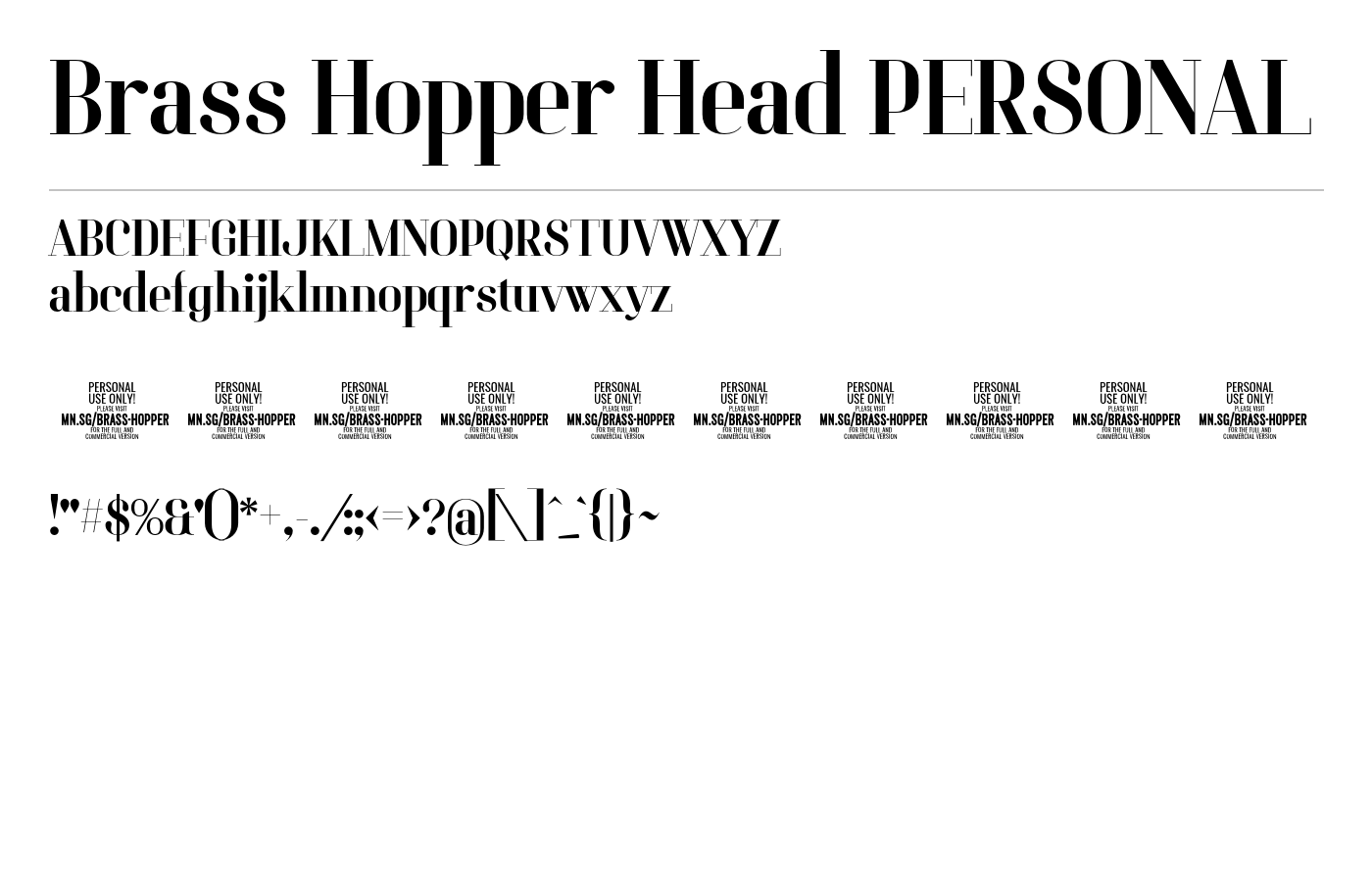
Brass Hopper Head PERSONAL is an elegant modern serif font with high contrast between thick and thin strokes, featuring tall, narrow letterforms and refined, unbracketed serifs. Its sophisticated, slightly condensed style exudes luxury and formality, making it ideal for upscale branding, editorial headlines, and fashion packaging where a strong, stylish impression is desired. This font’s distinctive shapes and sharp details bring a timeless, classy vibe suited to refined, high-end design projects.
Brass Hopper Head PERSONAL Font
About Brass Hopper Head PERSONAL Font